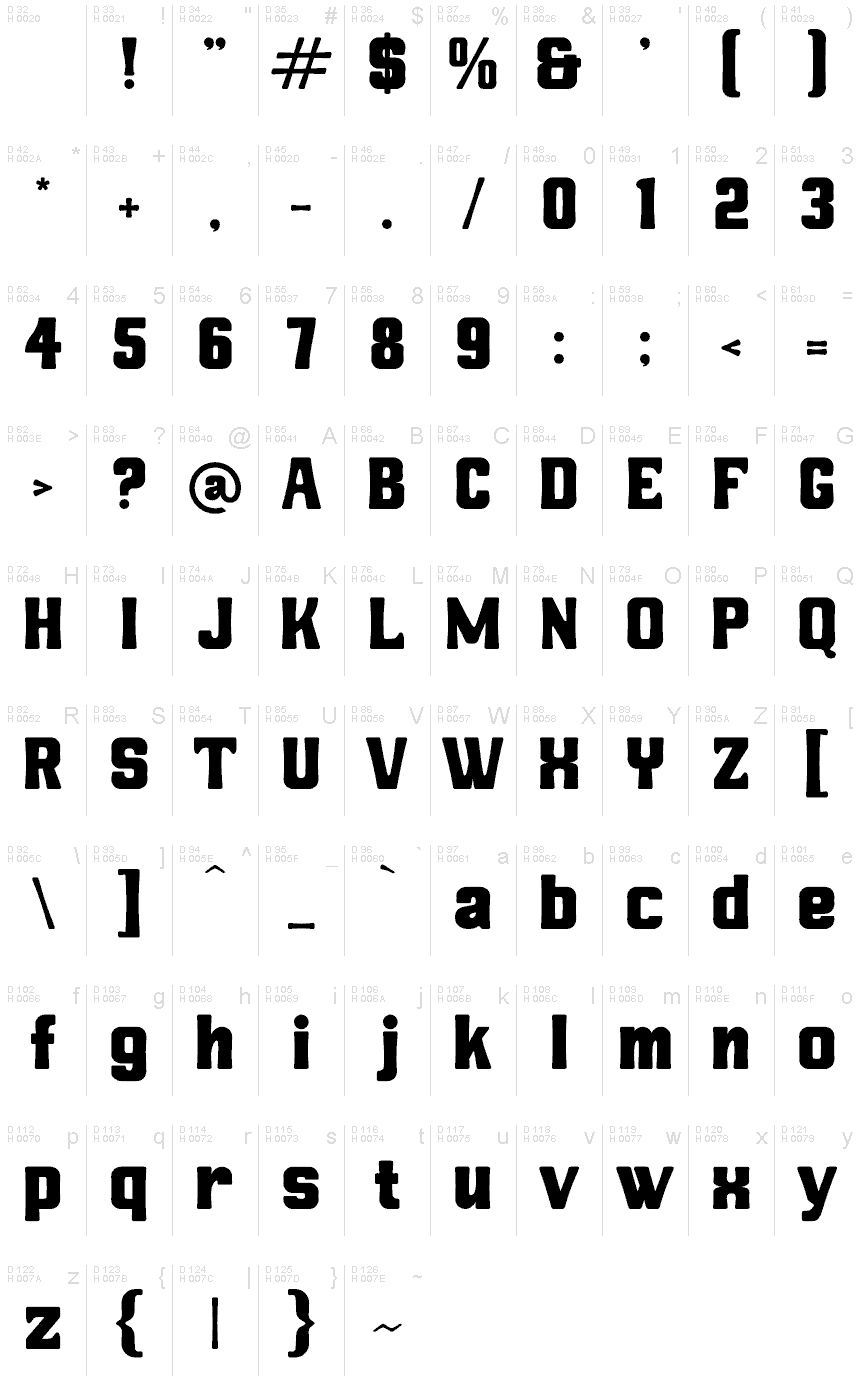
Wibledon
Wibledon font by Storytype Studio is a bold retro display font characterized by vintage-inspired eccentric characters. The modern typeface looks equally stunning on print designs and digital screens, and its high readability is accompanied by an understated but unique style. Its geometric nature allows proper kerning to be performed with ease when using large point sizes typical of display fonts.
Use this free retro typeface for logo design, social media page covers, mobile app interfaces, and brand identity designs. Moreover, it will serve designers well where poster headers are needed as well as in clothing collection advertisements or websites. Tags or labels on online shopping platforms will also benefit from the use of this bold and simple typeface in addition to multiple other creative project ideas!